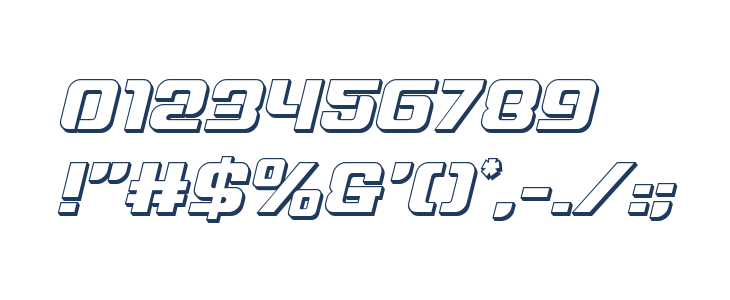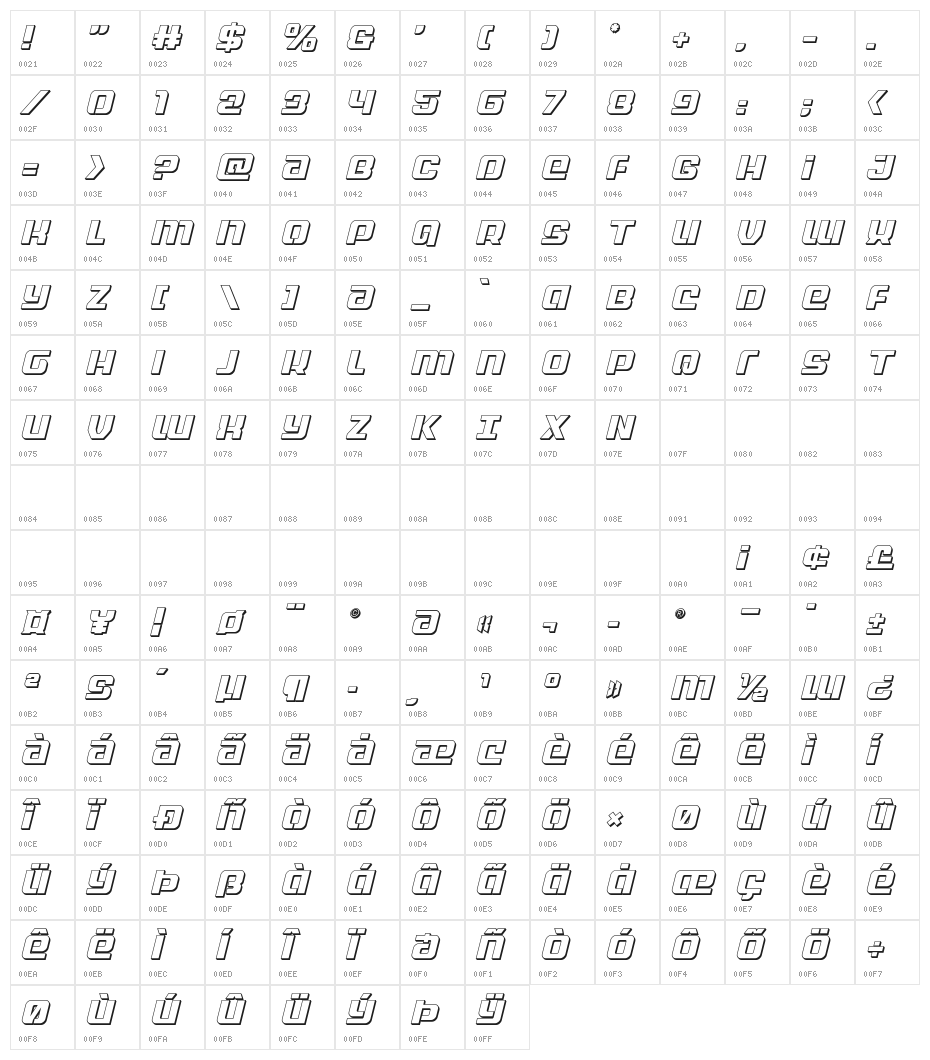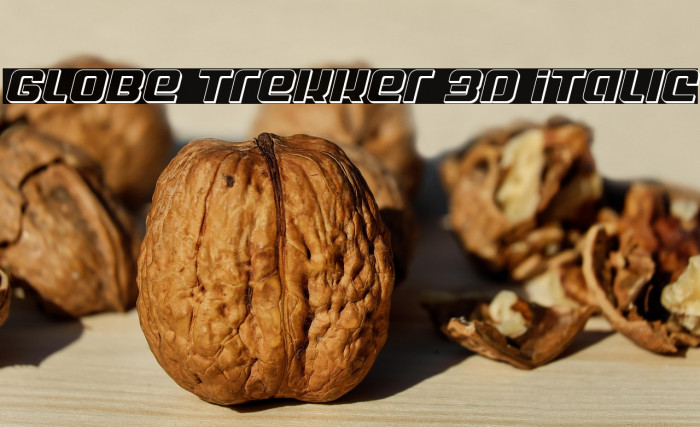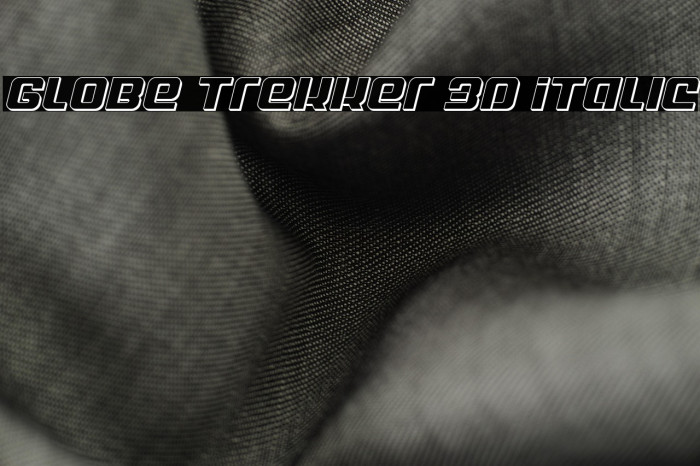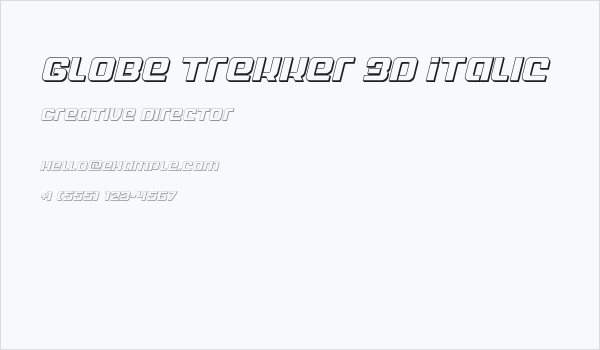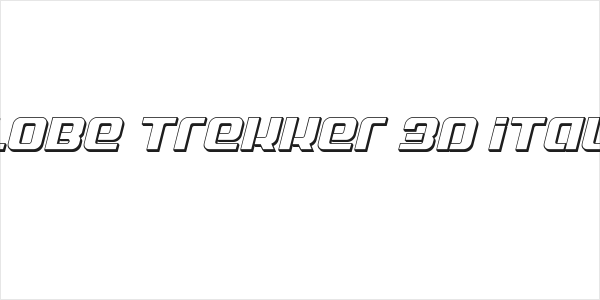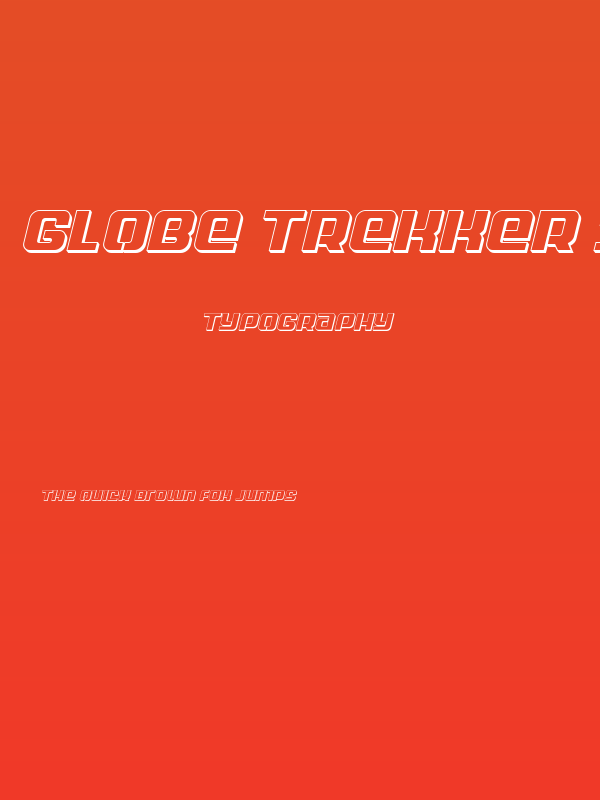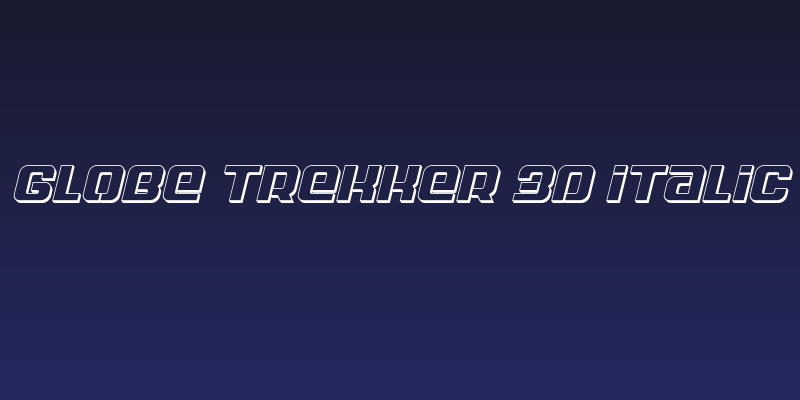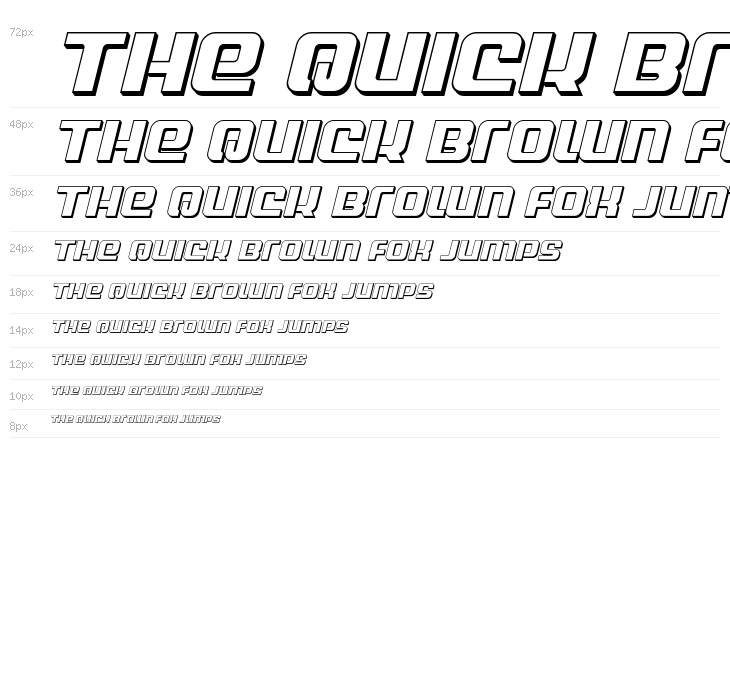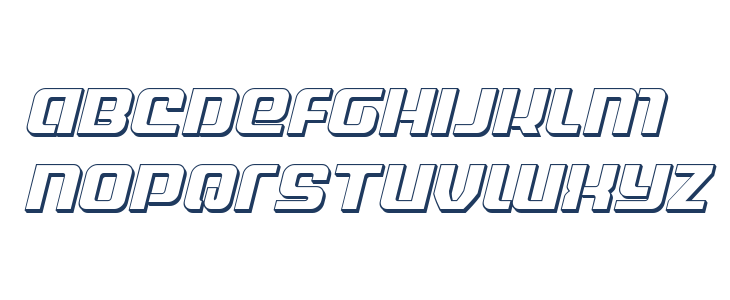
Globe Trekker 3D Italic Font
Globe Trekker 3D Italic Description
This font features a bold, three-dimensional appearance with a distinct italic slant, giving it a dynamic and futuristic look. The characters are outlined, creating a hollow effect that enhances the 3D illusion. Each letter and number is designed with sharp angles and clean lines, contributing to its modern aesthetic. The spacing between characters is consistent, allowing for readability while maintaining the font's unique style. This typeface is particularly eye-catching and would stand out in any design project that requires a bold statement.
Proposed ProjectsIdeal for sci-fi themed posters, video game titles, technology branding, and any project that requires a modern, eye-catching typeface.